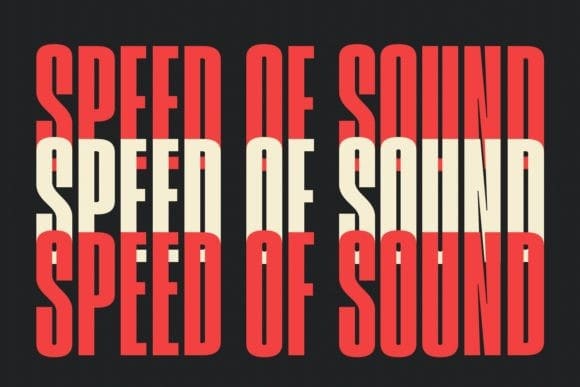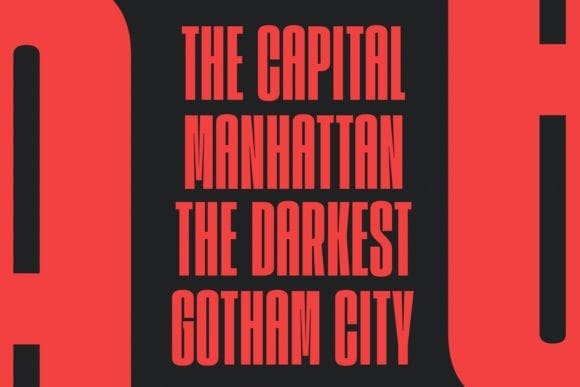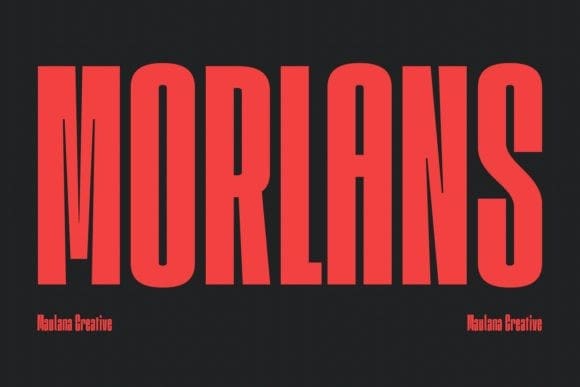
Morlans Font
Morlans Font is a compressed sans display font. Regular stroke, a fun character with a bit of ligature. This font is good for logo design, Social media, Movie Titles, Books Titles, a short text even a long text letter and good for your secondary text font with script or serif. Make a stunning work with Morlansfont.